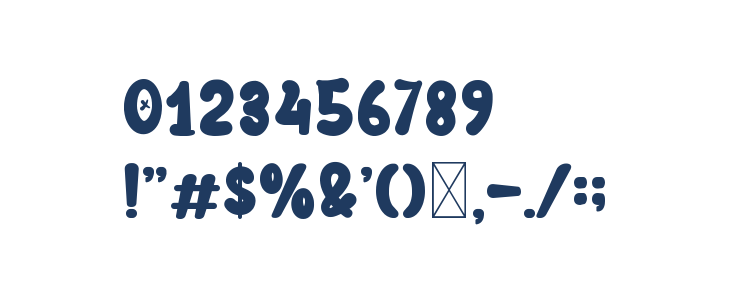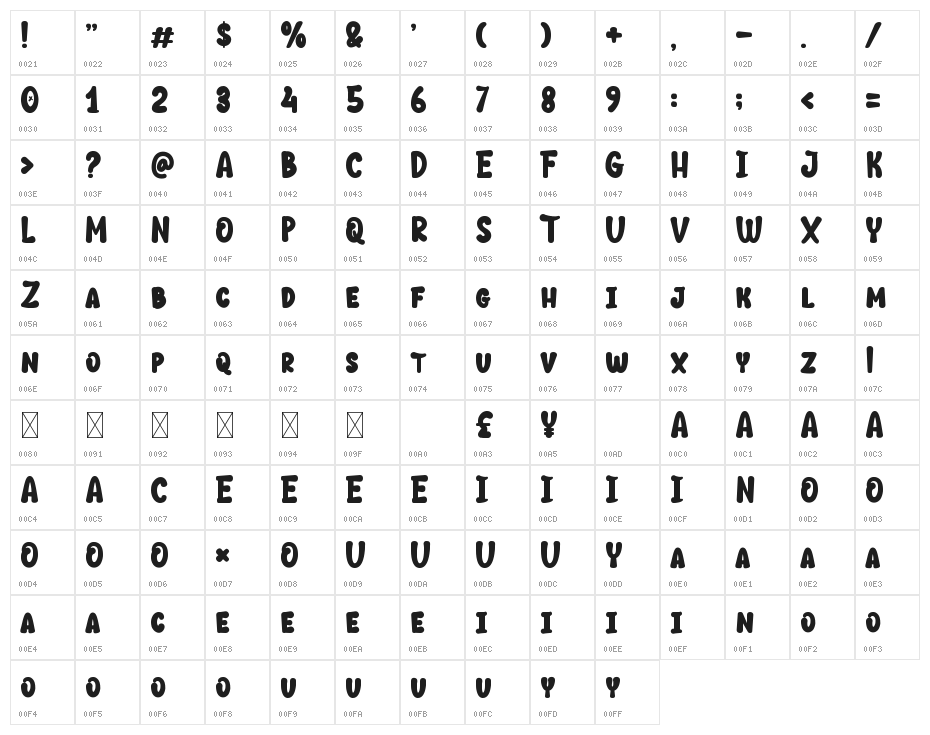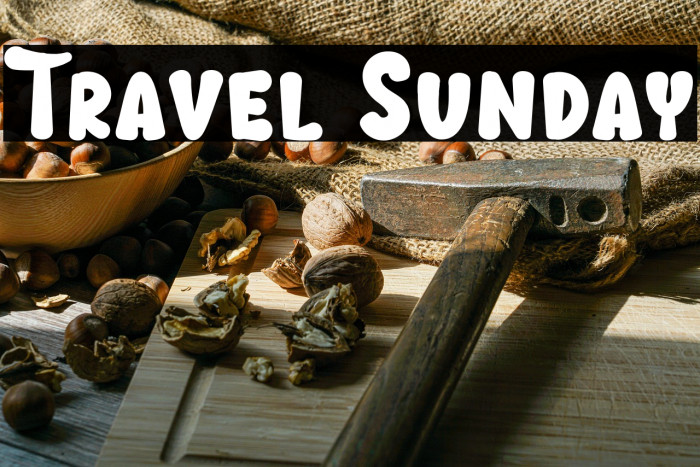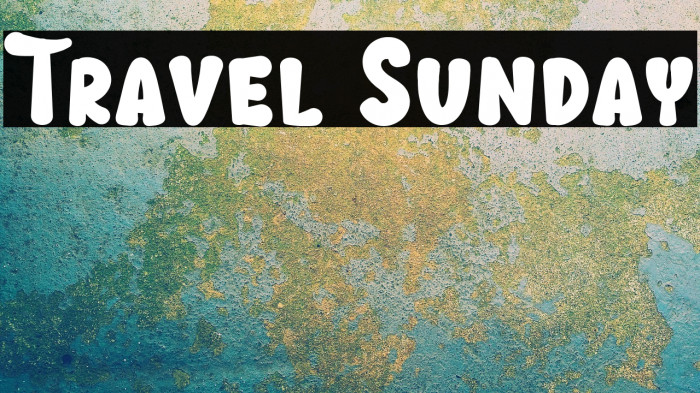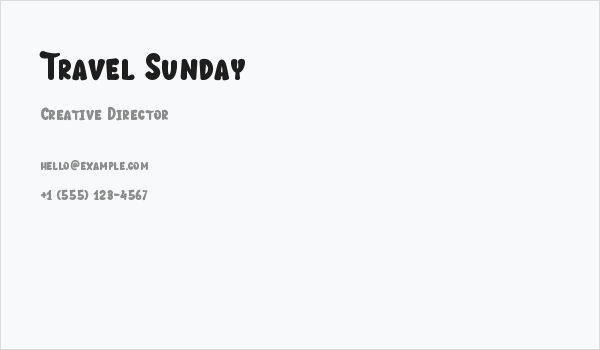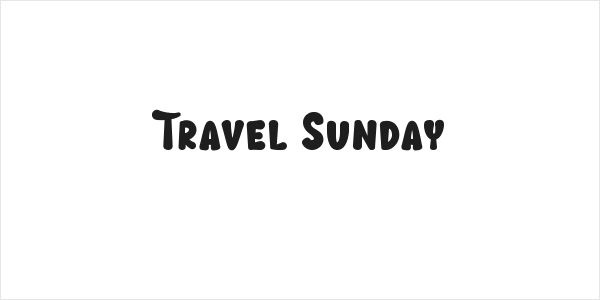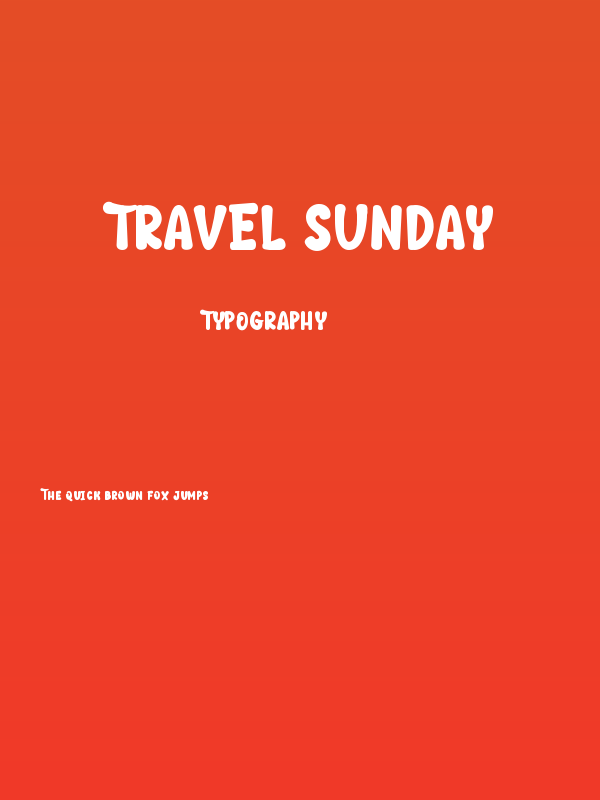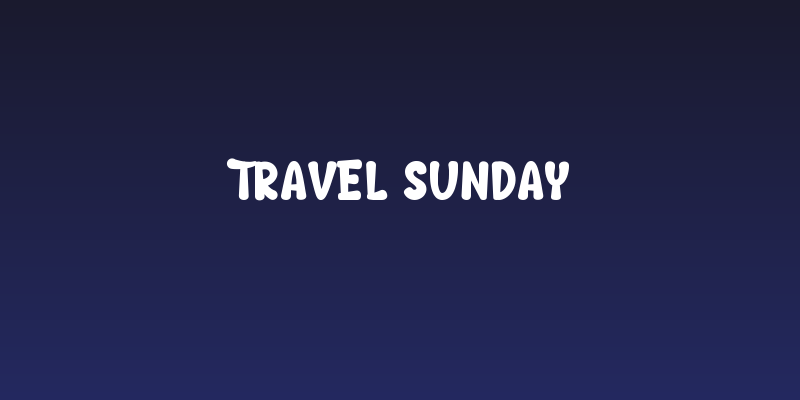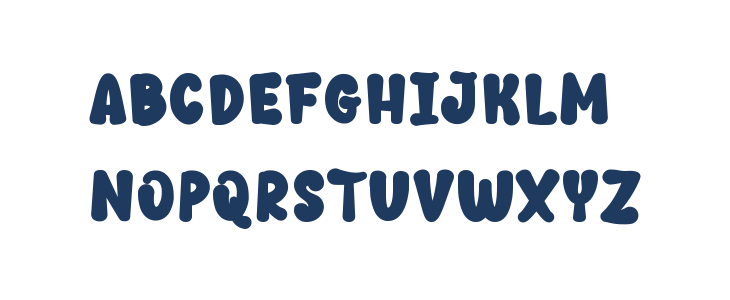
Travel Sunday Font
Travel Sunday Description
This playful and bold font features rounded, thick strokes that give it a friendly and approachable appearance. The characters are slightly irregular, adding a whimsical touch that makes it stand out. The uppercase and lowercase letters maintain a consistent style, with a slight slant that suggests movement and energy. The numbers and special characters are equally bold and expressive, making them perfect for attention-grabbing designs. The overall look is casual yet impactful, suitable for projects that require a fun and lively aesthetic.
| Overall Style | Playful, Casual |
| Proposed Projects | Ideal for children's books, playful branding, event posters, and social media graphics. |